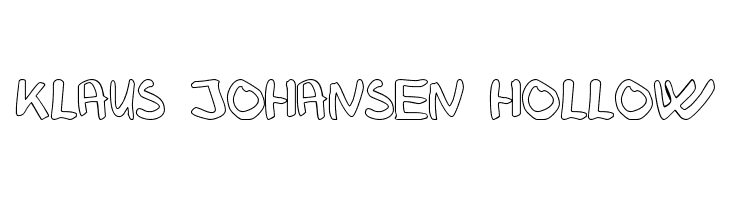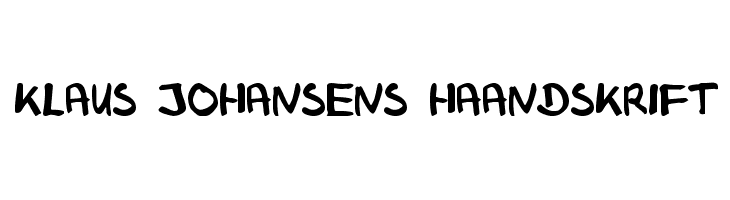
• Klaus Johansen hollow Fuentes
A playful, hollow, and outlined font with bold, rounded characters.
• Klaus Johansens haandskrift Fuentes
A bold, playful handwritten font with thick strokes and an energetic style.